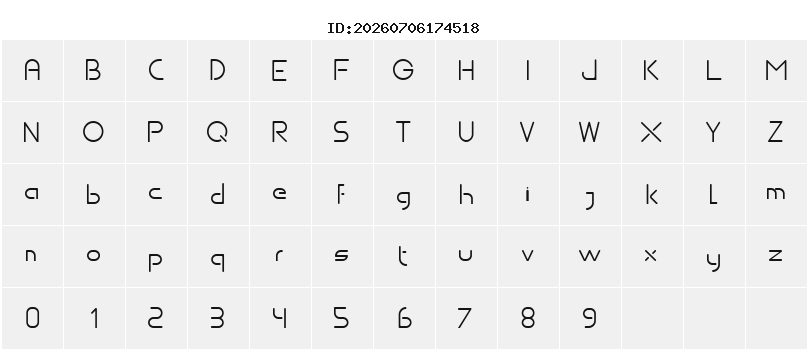
• Font Name: Develuz
• Designer: Jorge Machicado
Develuz.ttf is a modern, elegant sans-serif font designed for ultimate readability and visual harmony. Perfect for branding, headlines, web design, and print materials.